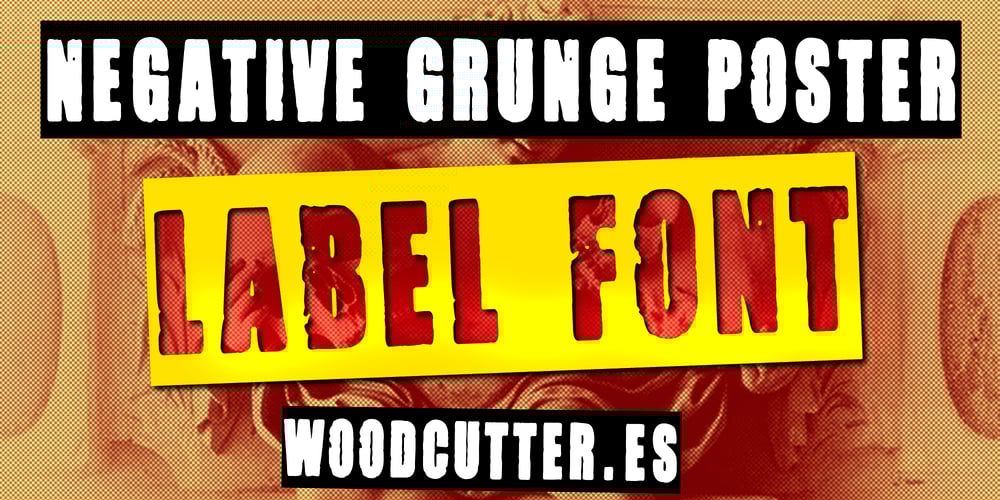
Negative Grunge Poster Font Family was designed by Jordi Manero and published by Woodcutter. Negative Grunge Poster contains 1 styles and family package options. “Negative Grunge Poster” is a typeface that stands out for its inverted style and elegantly eroded uppercase letters. Inspired by the grunge aesthetic, each letter appears worn by time, providing a raw and authentic effect. Ideal for posters and projects seeking a rebellious and bold touch, this font adds depth and character to any design. “Negative Grunge Poster” is perfect for capturing attention and conveying a sense of decay and urban style, making every word resonate with a striking visual force. –Uppercase